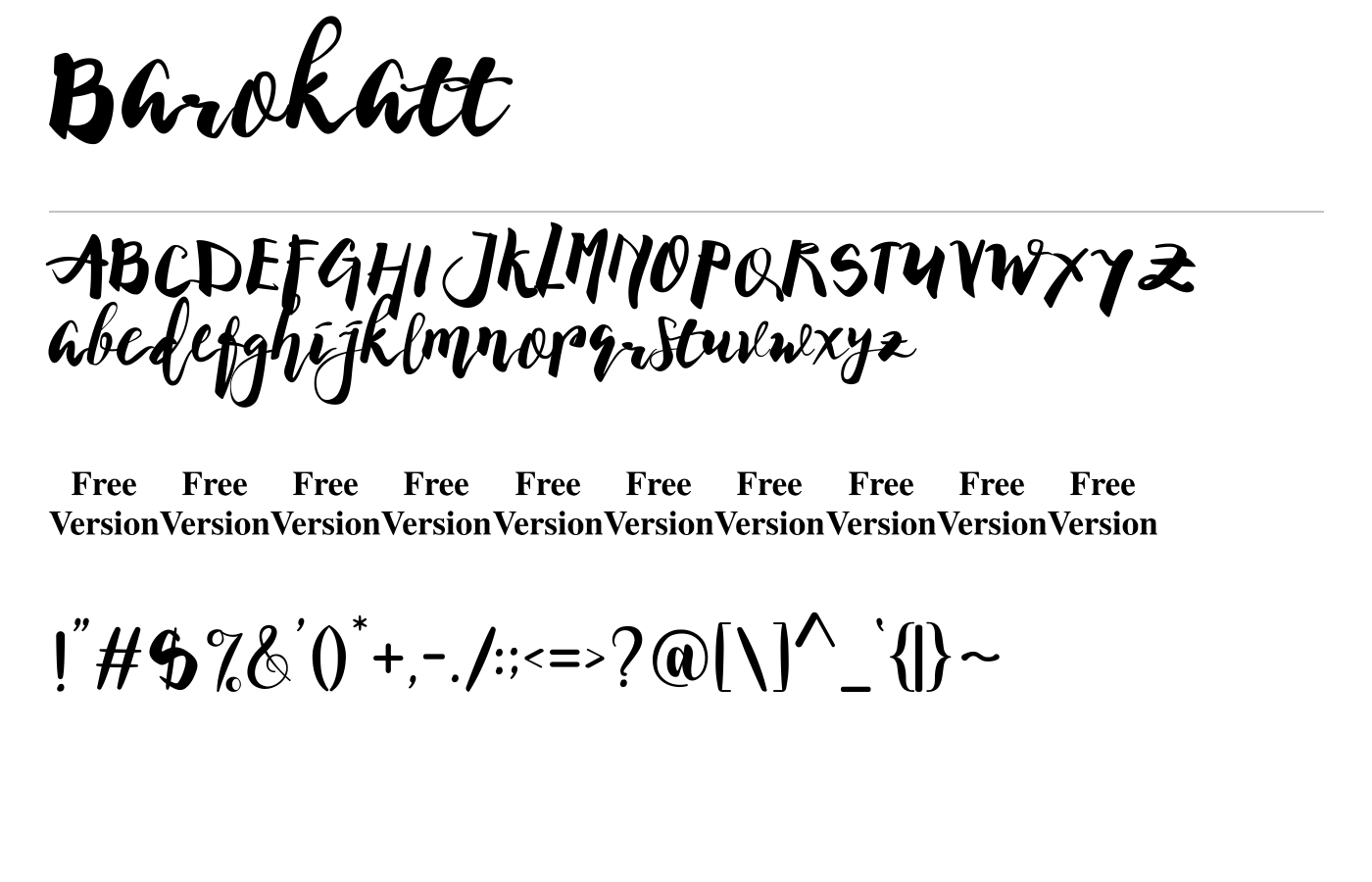
Barokatt is a playful and expressive script font with a lively, hand-drawn feel that combines bold, irregular strokes with elegant swashes. Its high contrast between thick and thin lines and slightly condensed letterforms give it a dynamic, artistic personality, perfect for creative branding, invitations, and eye-catching headlines. This font works well where a personal, informal touch is desired, adding charm and character to fashion, lifestyle, and boutique projects.
Barokatt Font
About Barokatt Font